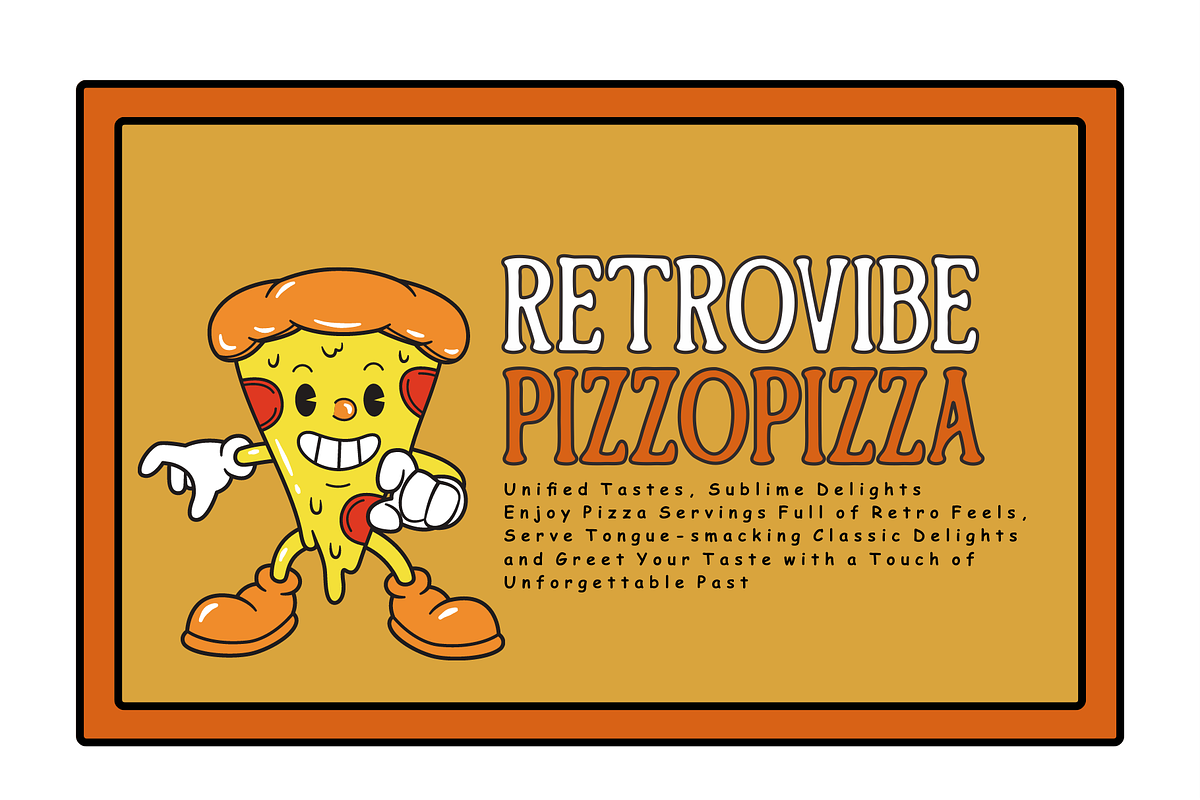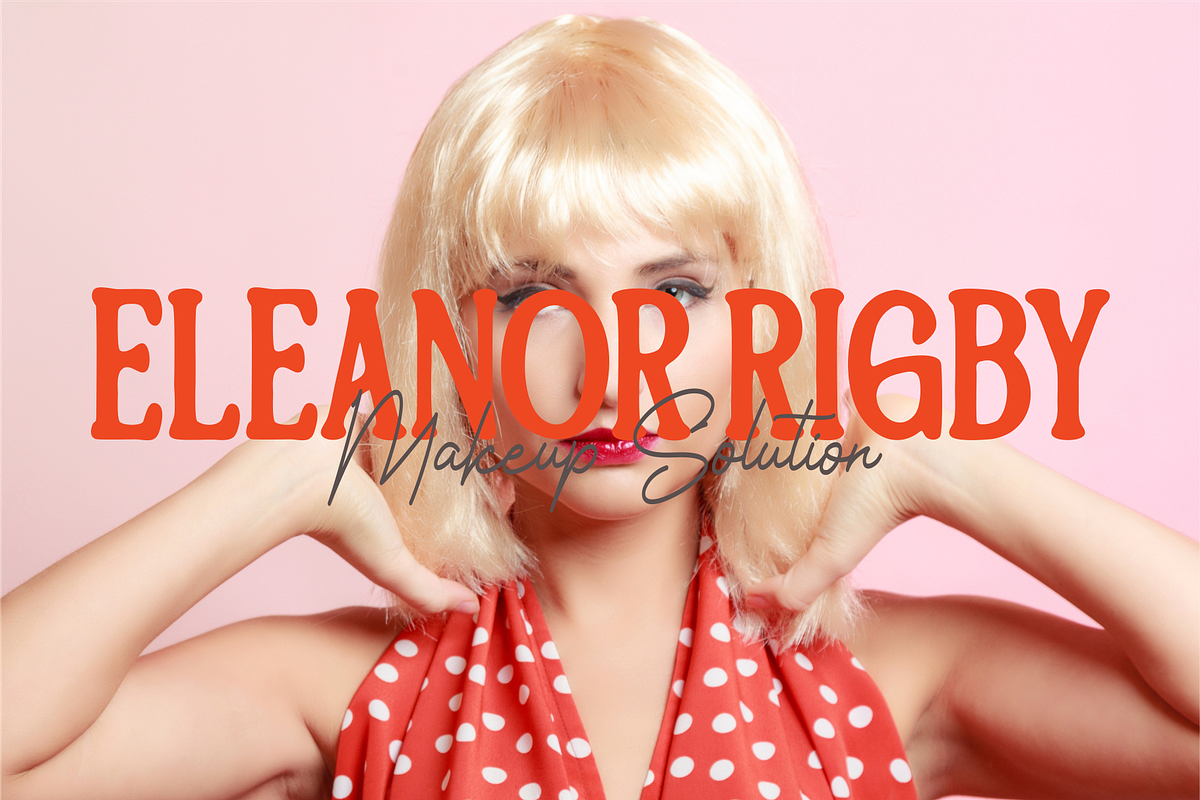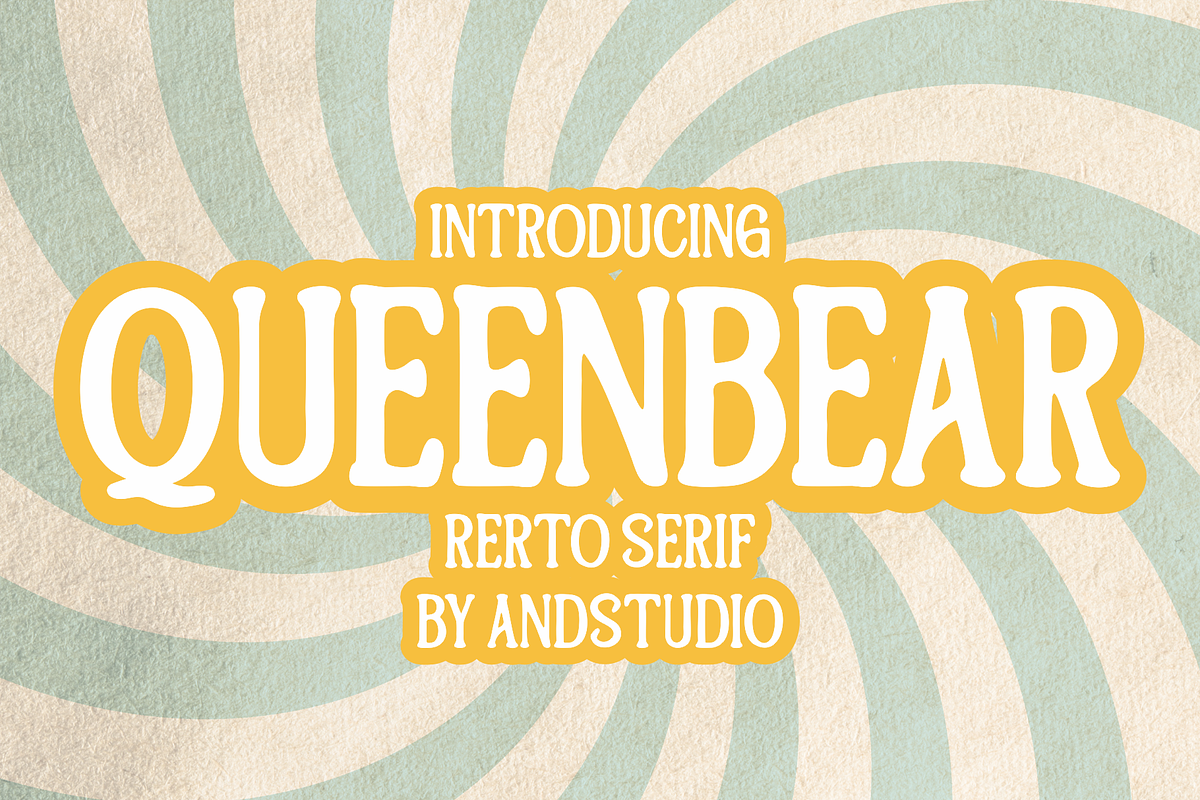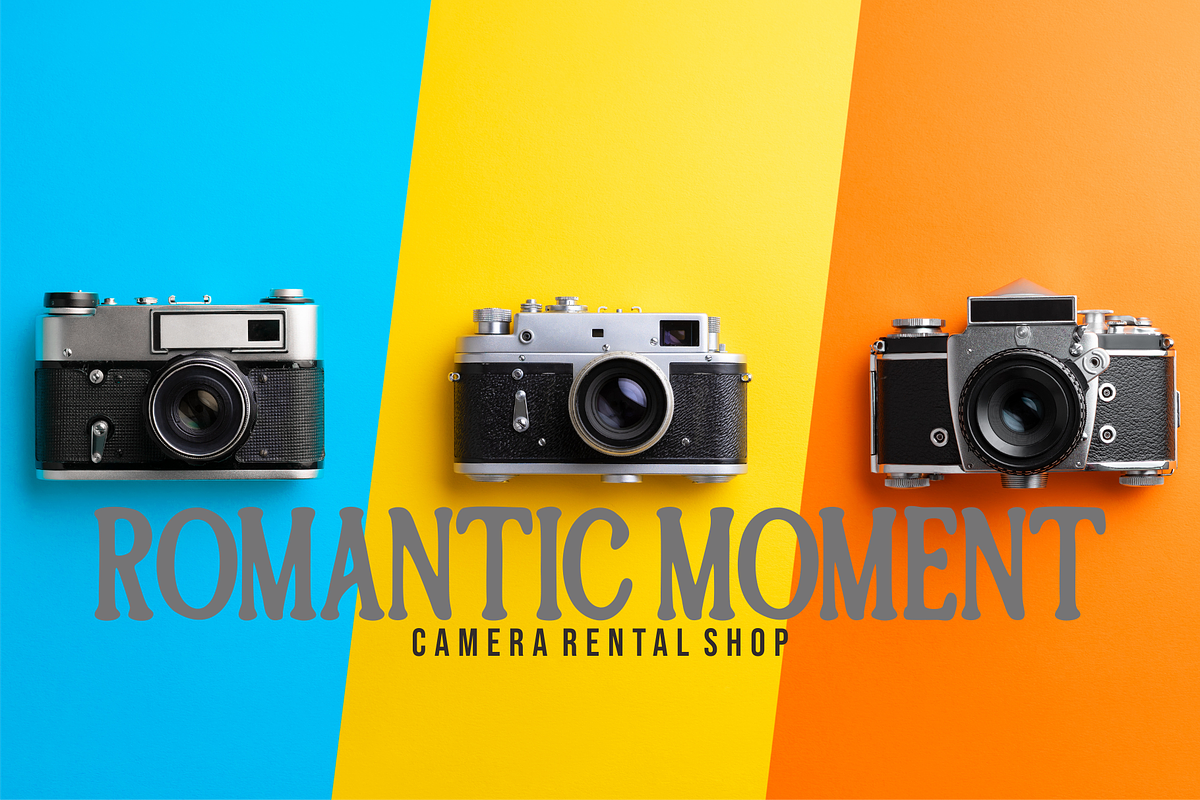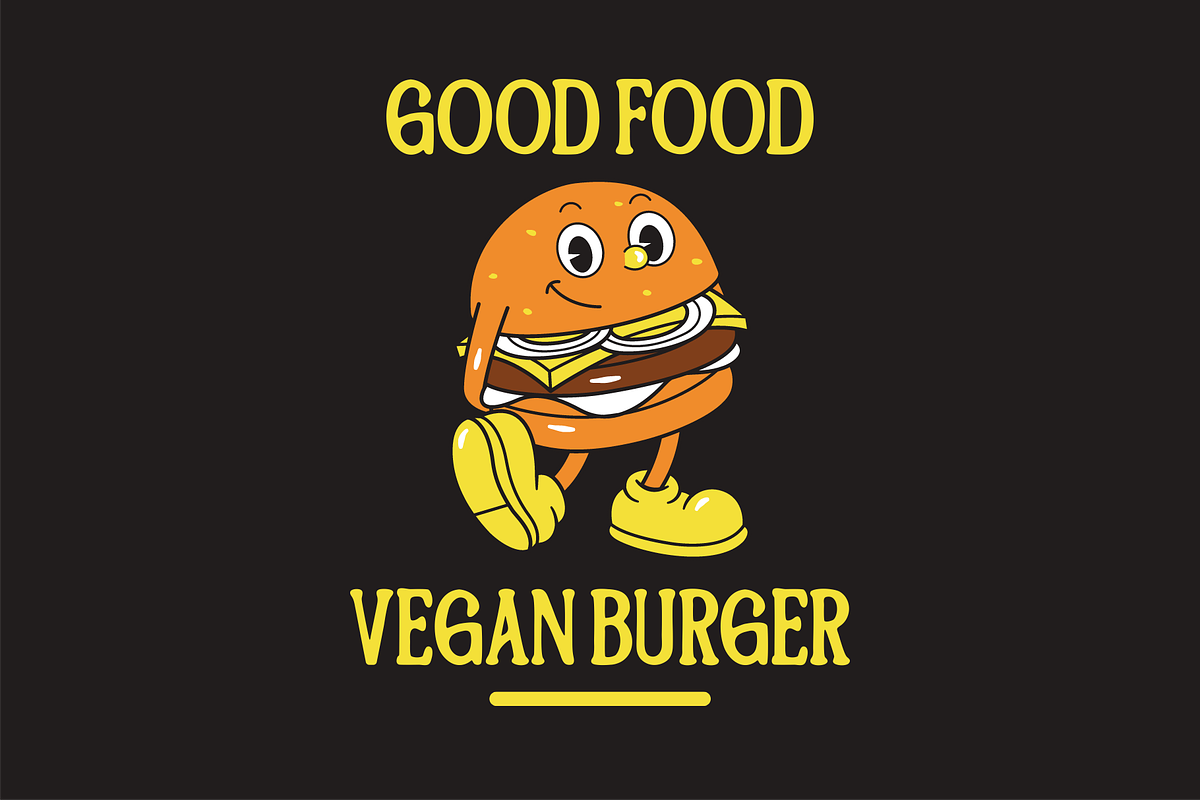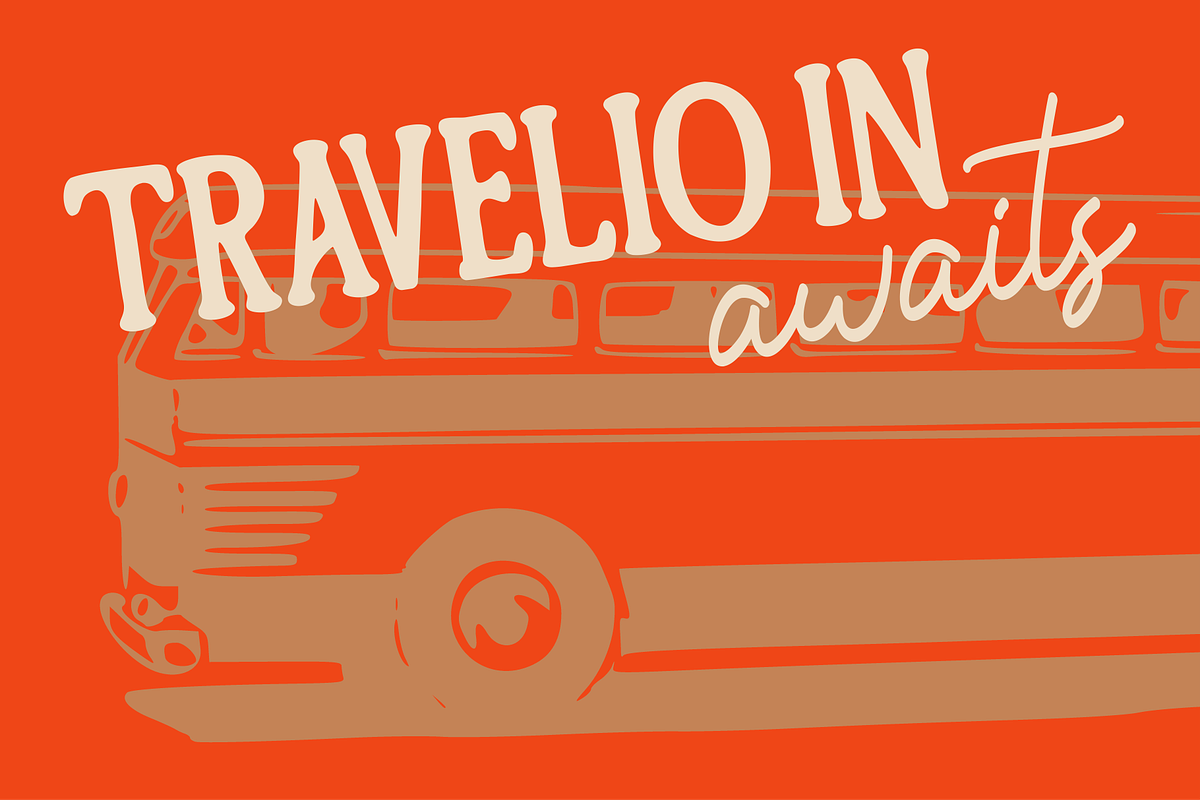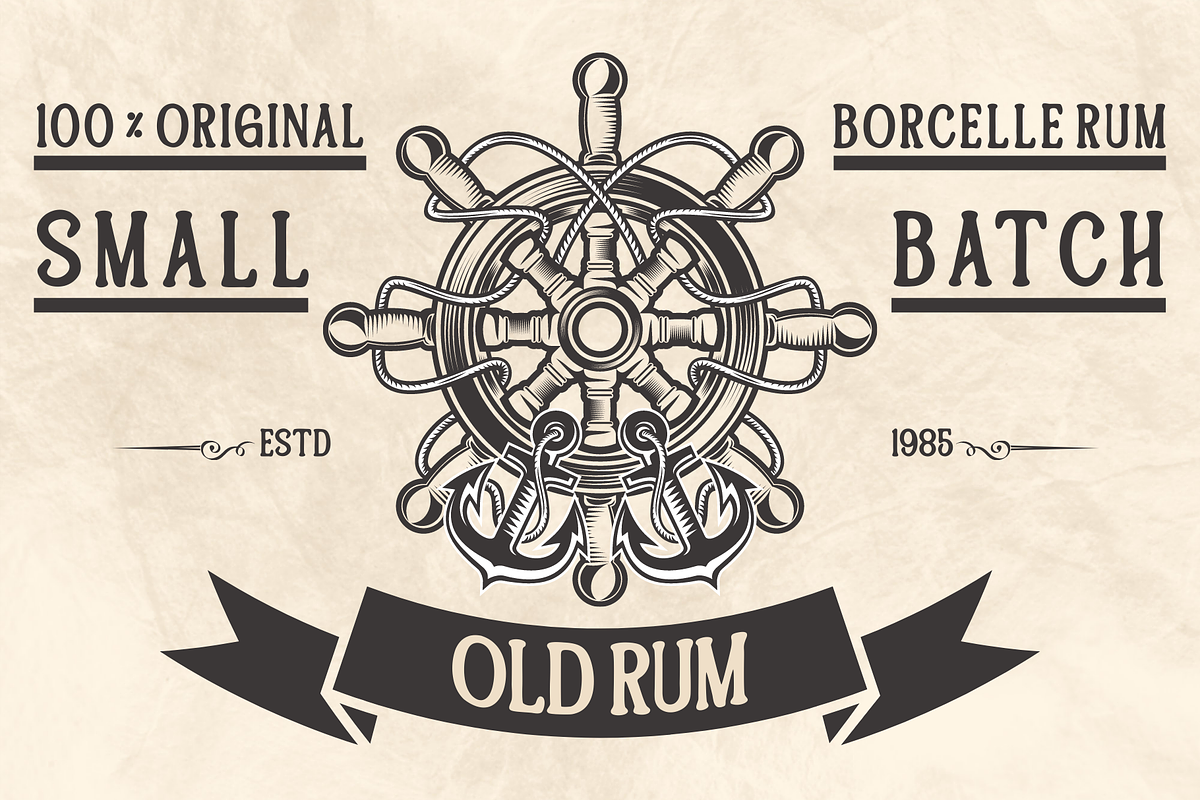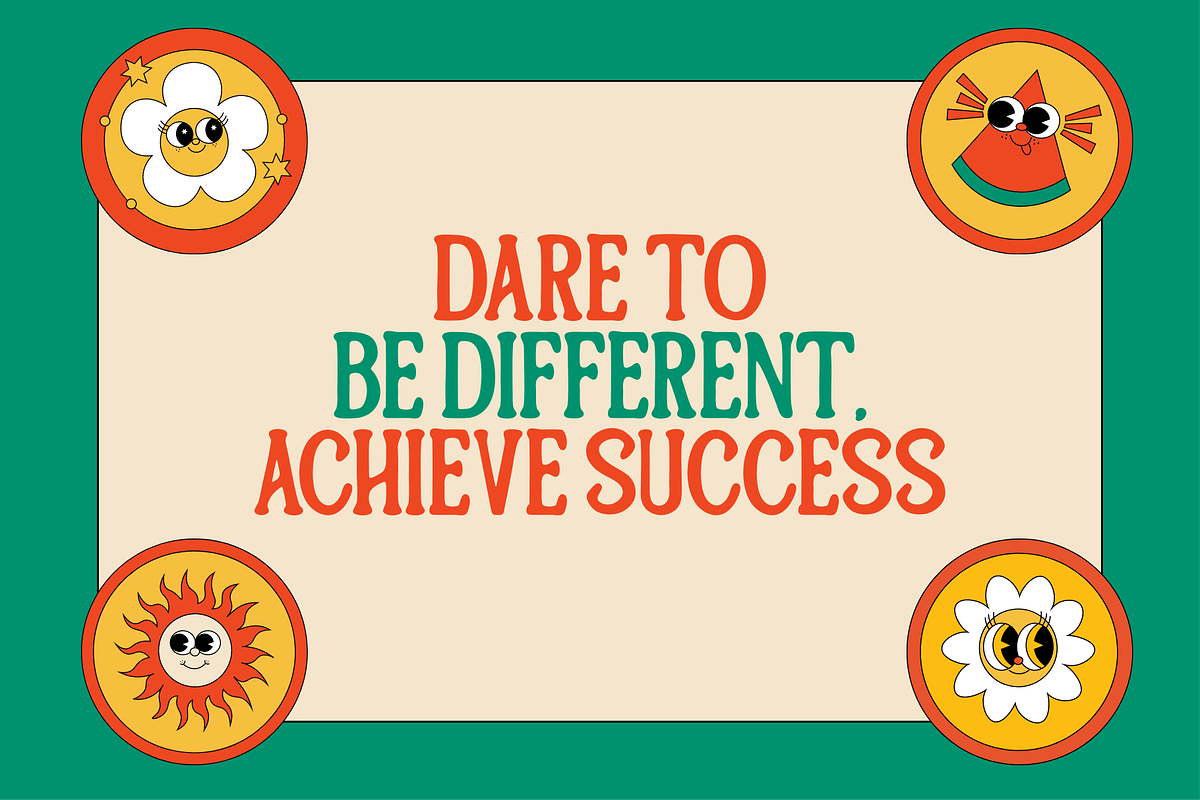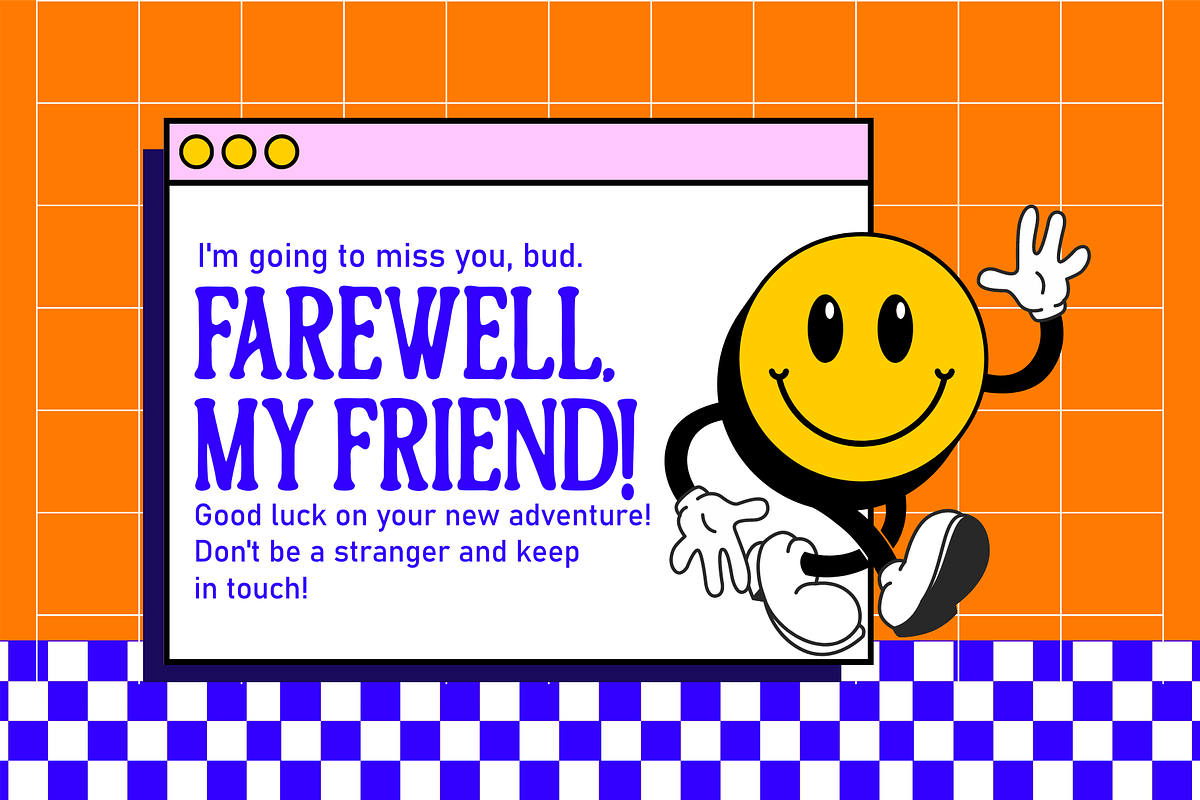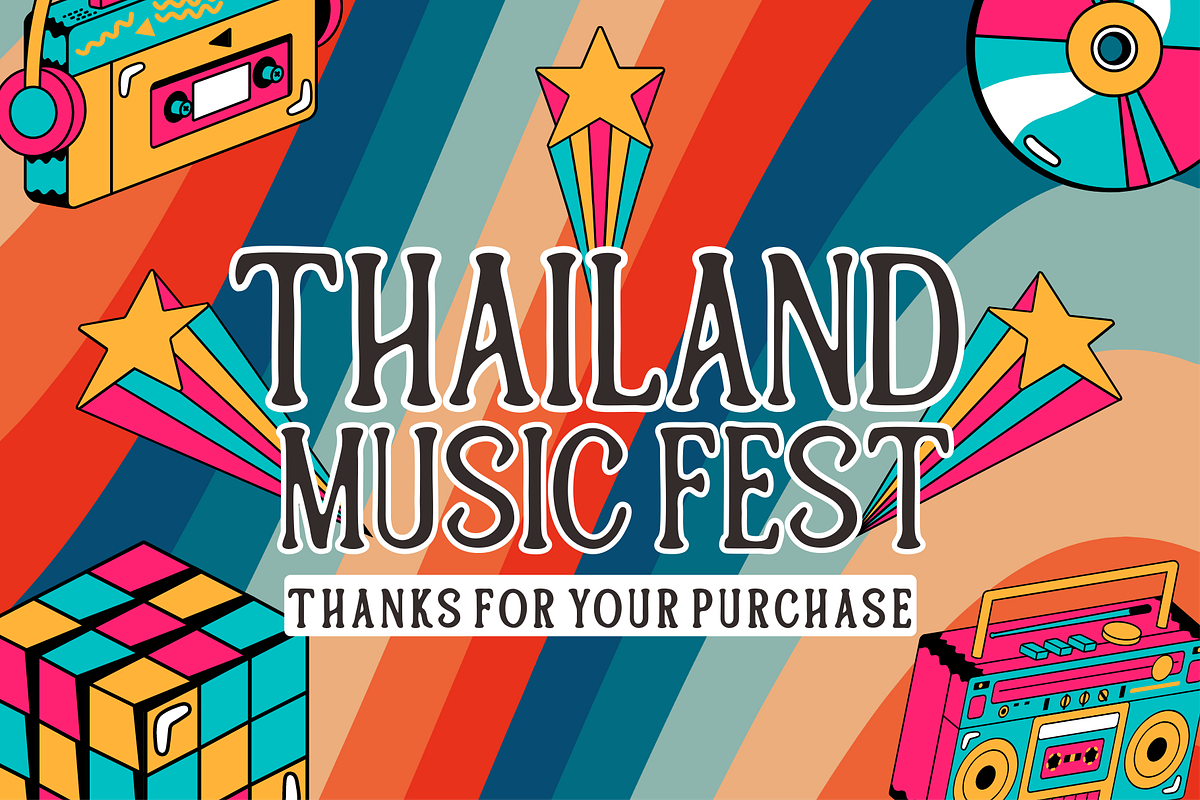
Queenbear
Queenbear Retro Serif Font is a type of serif font with a classic design inspired by the vintage era. The font has a characteristic bold line that looks elegant and gives a classy impression to every text display. The uniqueness of this font lies in its serif style, which gives an elegant and romantic touch to every word and sentence written with this font.
With its advantage of providing a vintage and romantic impression, “Queenbear” Vintage Serif Font is suitable for graphic design such as logos, letterheads, posters, greeting cards, or designs for social media. This font can also be used for design projects that require a classic and elegant touch, such as wedding party designs, invitations, and vintage-style related products.